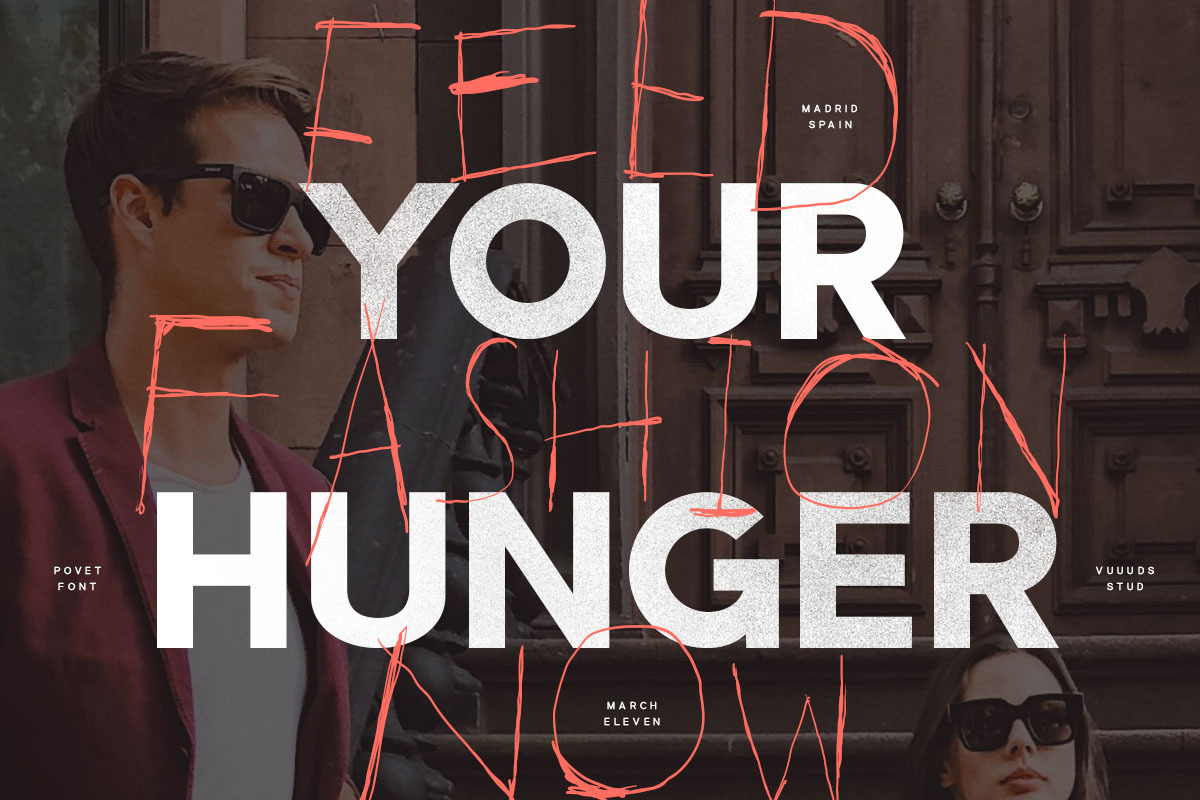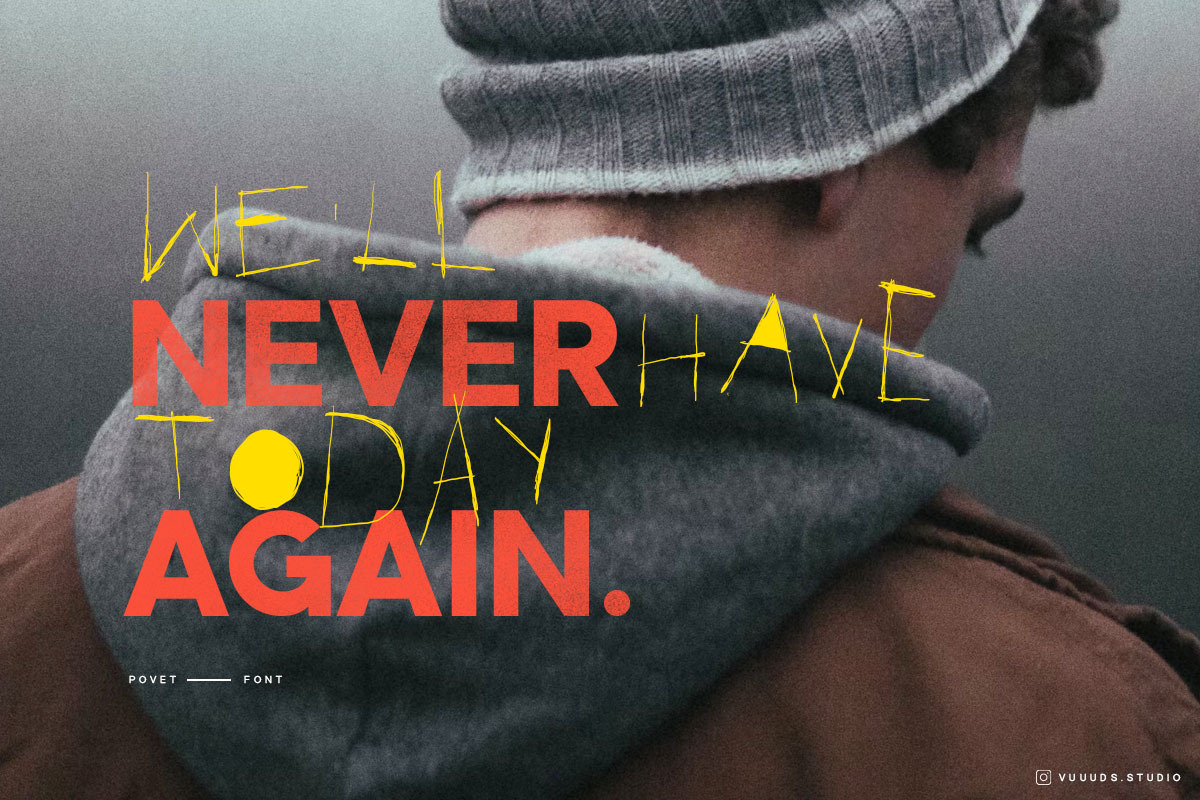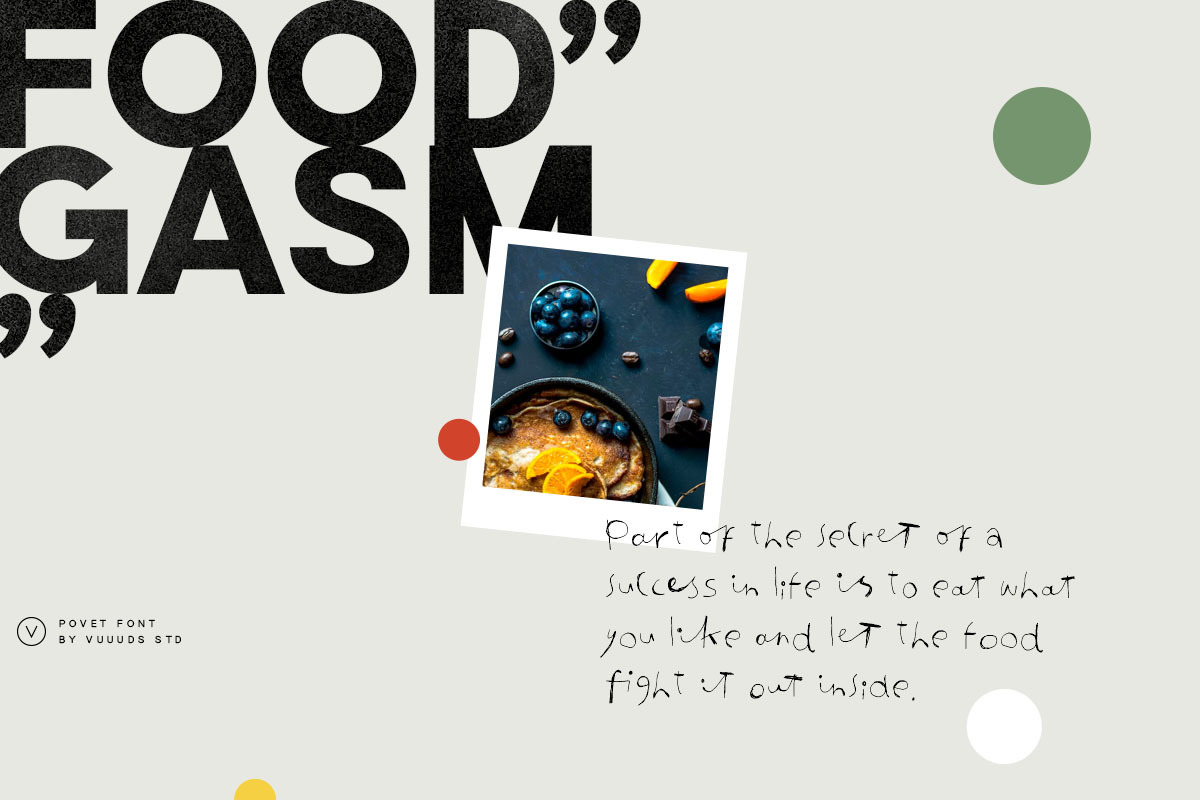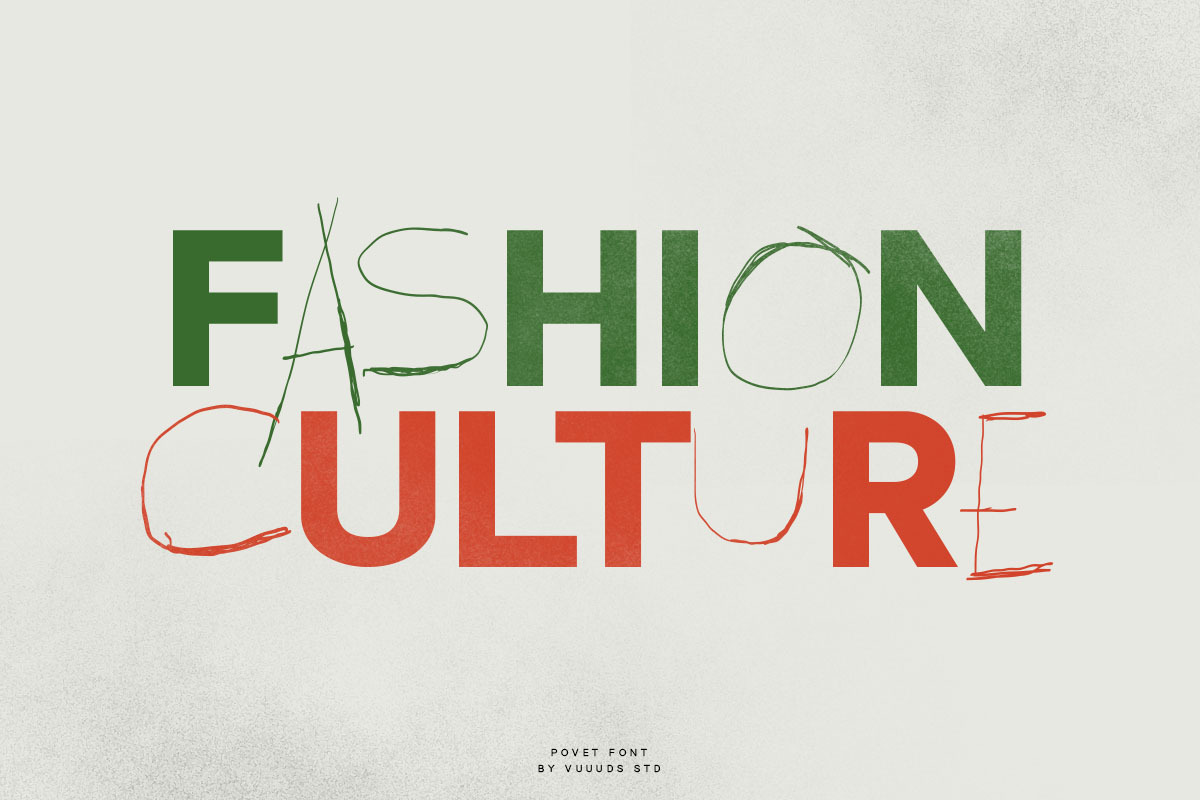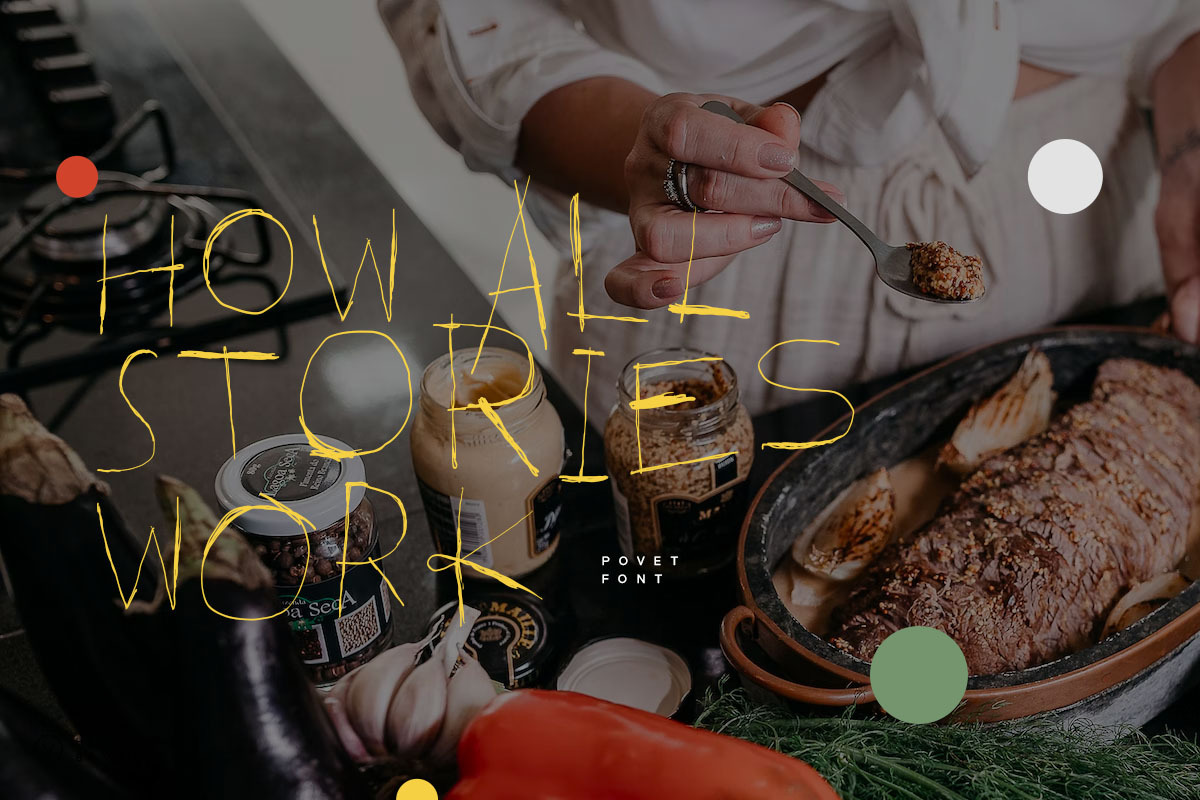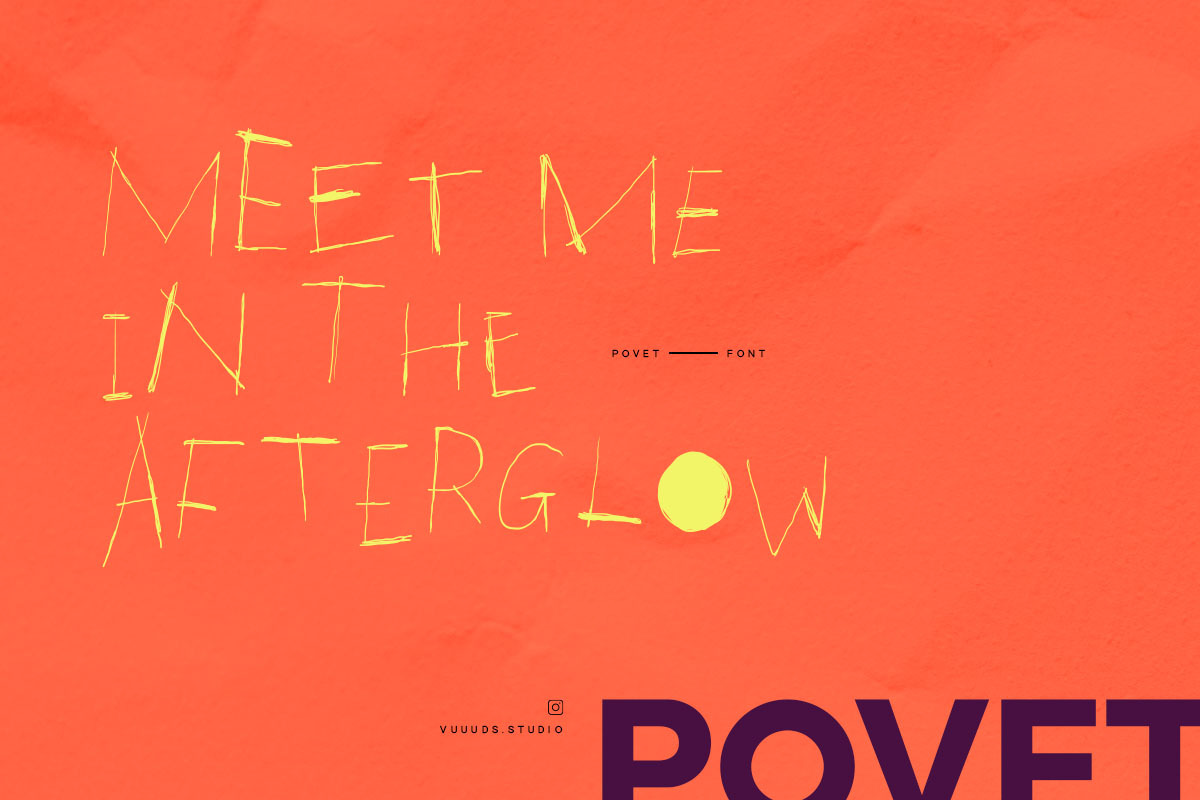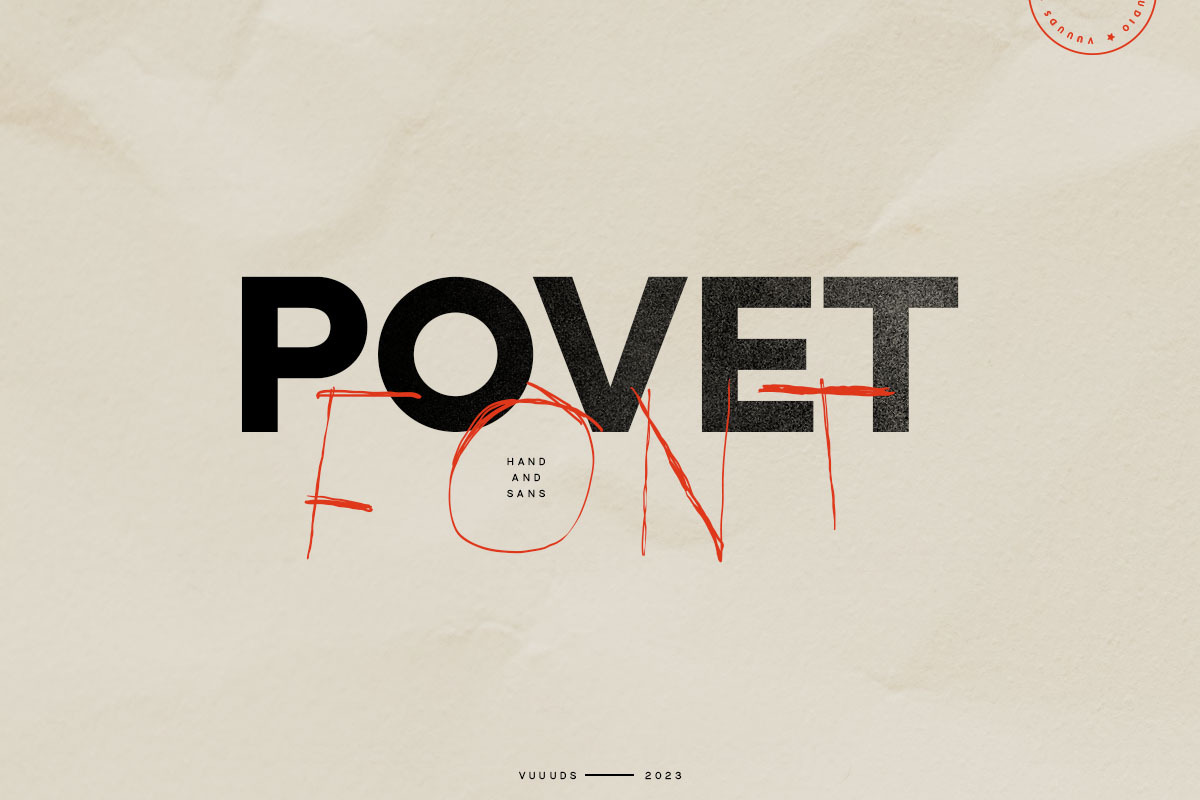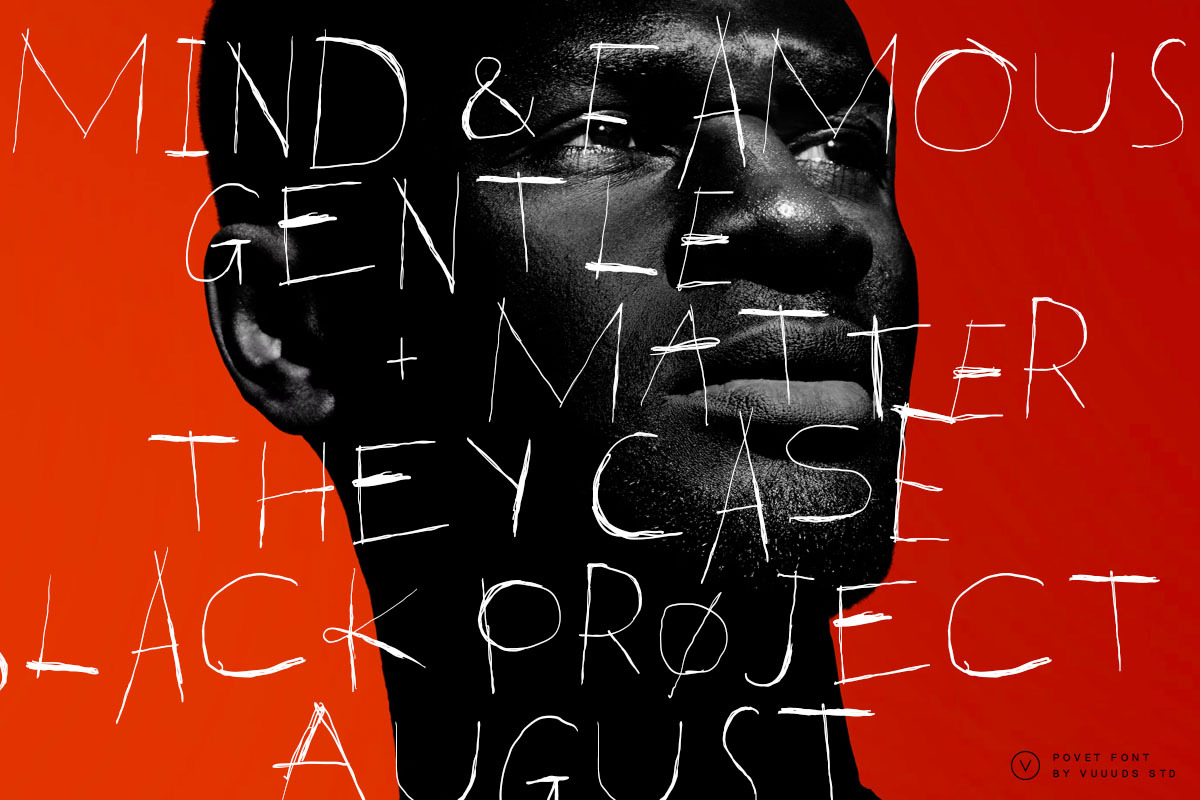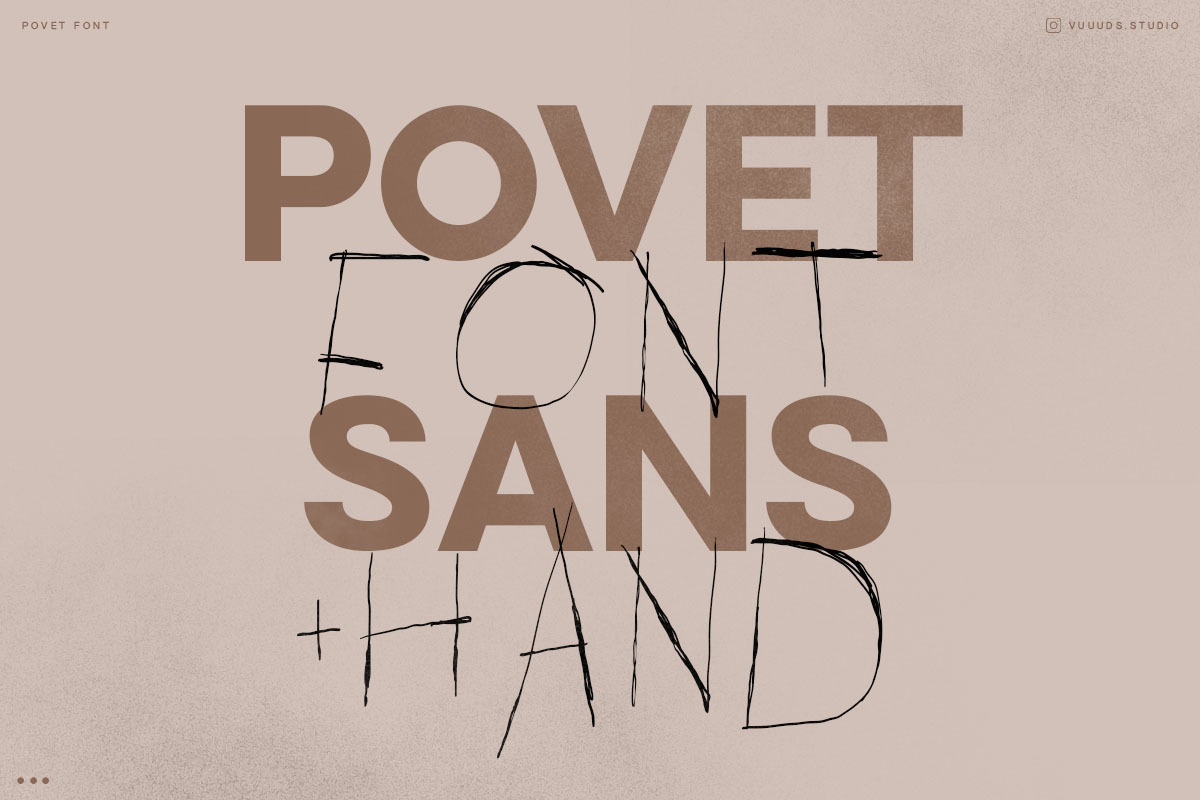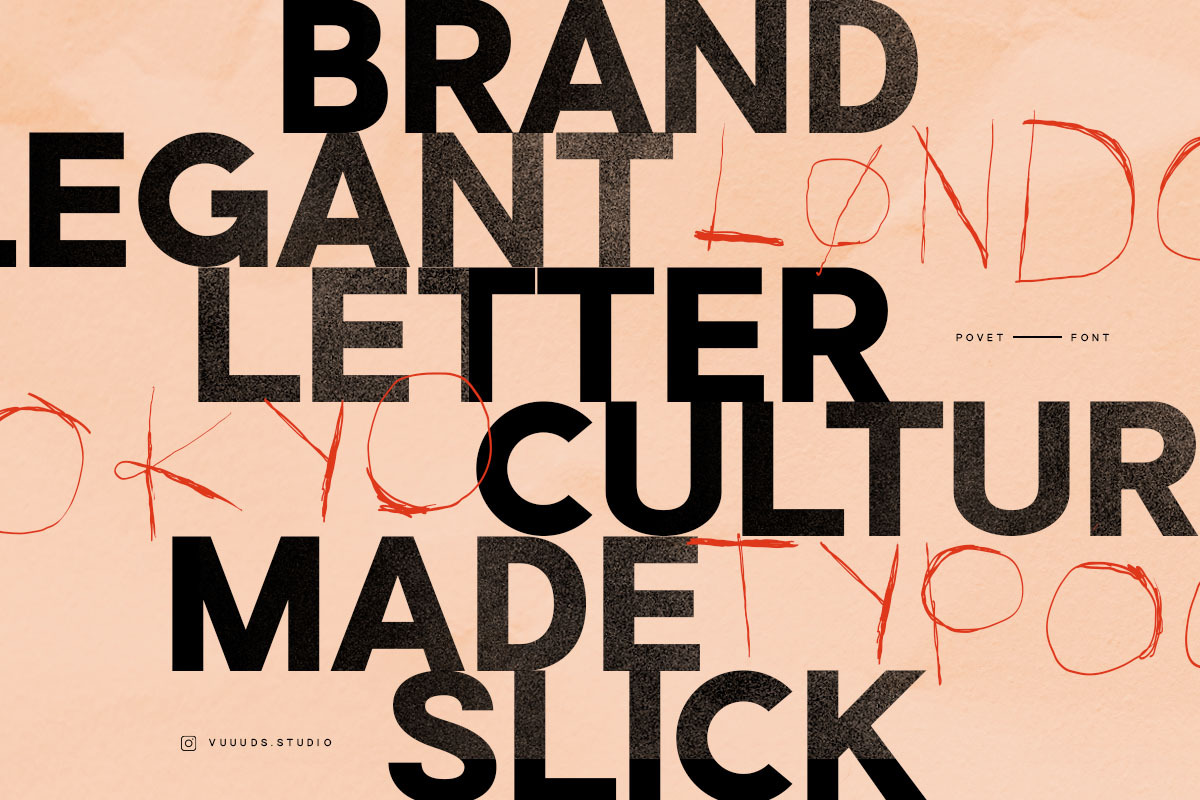
Povet • Sans and Hand
Introducing Povet Font Duo!
Povet is modern experimental font duo Sans and Hand, every single letters have been uniquely crafted.
Foreign languages support: ÀÁÂÃÄÅÆÇÈÉÊËÌÍÎÏÐÑÒÓÔÕÖØÙÚÛÜÝàáâãäåæçèéêëìíîïðñòóôõöøùúûüýÿ